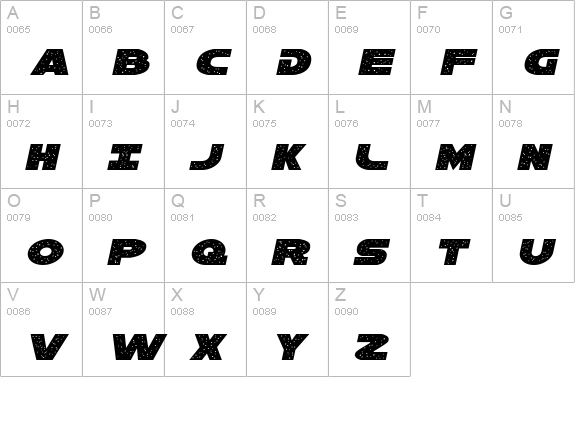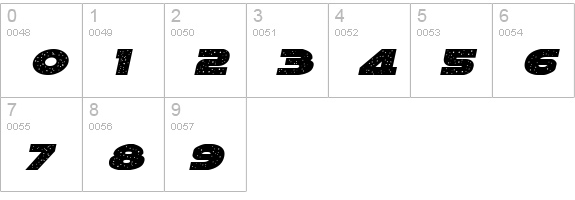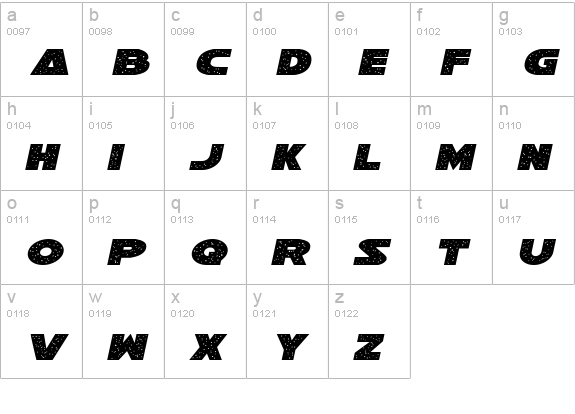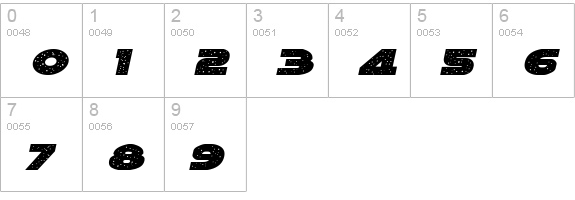
Galaxy 1 Italic is a distinctive, italic variant in the Galaxy typeface family \xE2\x80\x94 well suited to design and typography projects.
Galaxy 1 Italic font is a sleek and modern typeface that exudes elegance and sophistication. With its stylish slanted design, this font is perfect for adding a touch of flair to any project. Whether you are creating a professional document or designing a trendy website, Galaxy 1 Italic font will make your text stand out. What sets Galaxy 1 Italic font apart is not just its striking appearance, but also the fact that it is available for free. Yes, you read that right - you can download this stunning font at no cost from FontsMarket.com. Take advantage of this amazing offer and elevate your design projects with the beauty and versatility of Galaxy 1 Italic font.